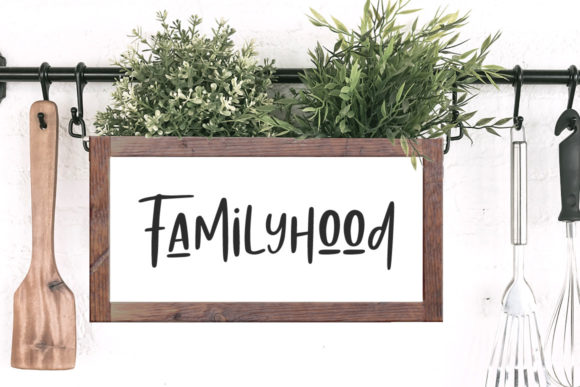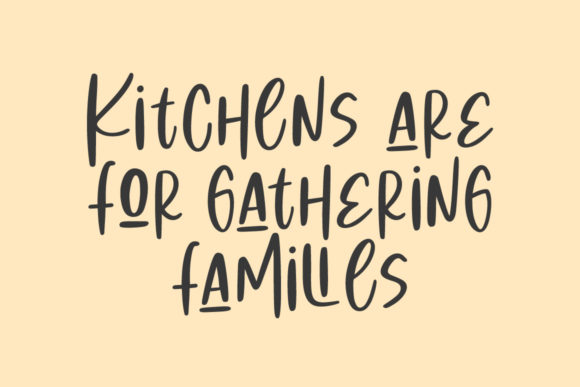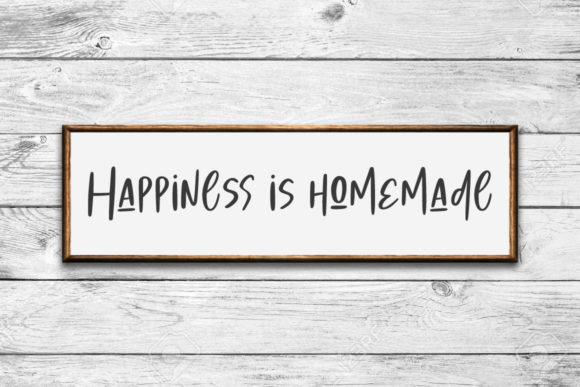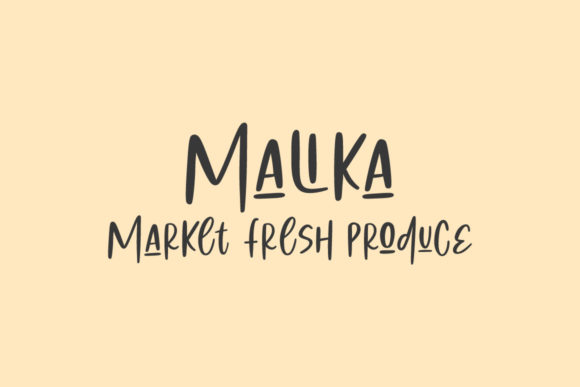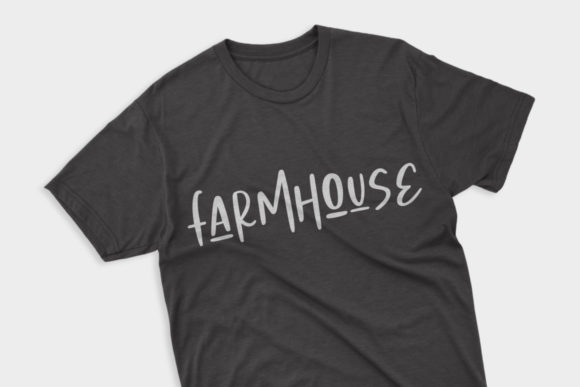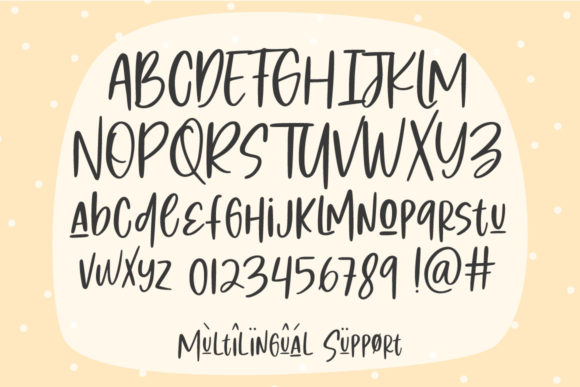
Introduction to Love Summer Font Font
Fonts play a crucial role in design, and the Love Summer Font font is a typeface that brings both character and versatility to any project. Whether you’re working on a branding project, a website, or a print design, the Love Summer Font font offers a unique style that can elevate your work.
Love Summer is a cool, relaxed and friendly handwritten font, that can be used for all chalkboard quotes or teaching material.
Its authentic look and feel will add a personal and realistic feel to your designs .
Key Features of Love Summer Font Font
• ✅ High-quality typeface designed for professional use
• ✅ Includes a wide range of glyphs and characters
• ✅ Ideal for logos, branding, websites, and print
Why Choose Love Summer Font Font?
The Love Summer Font font is more than just a typeface – it’s a design tool that helps you communicate your message with style and clarity. Its unique character set and versatile design make it suitable for a wide range of applications, from elegant invitations to bold headlines.
With its carefully crafted letterforms and balanced proportions, the Love Summer Font font ensures readability and visual appeal across all mediums.
What makes Love Summer Font font special?
The Love Summer Font font stands out with its unique design, exceptional readability, and versatility across various design applications.